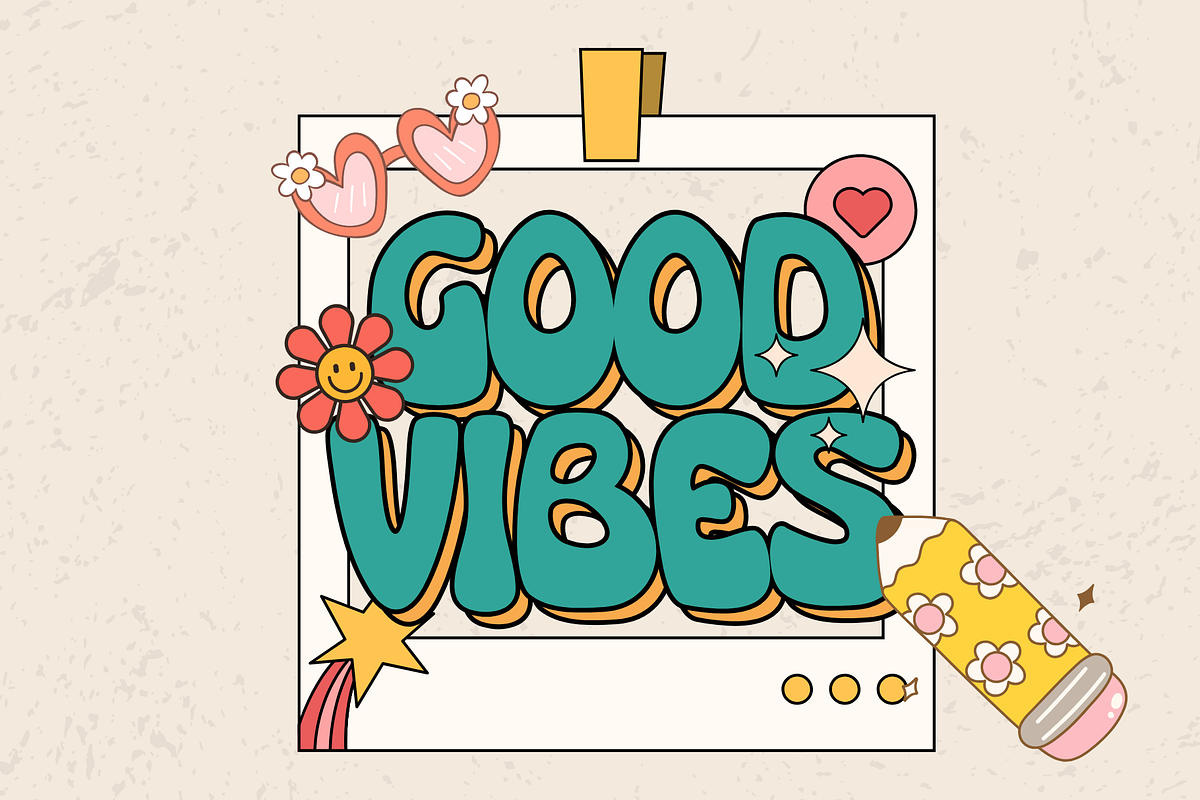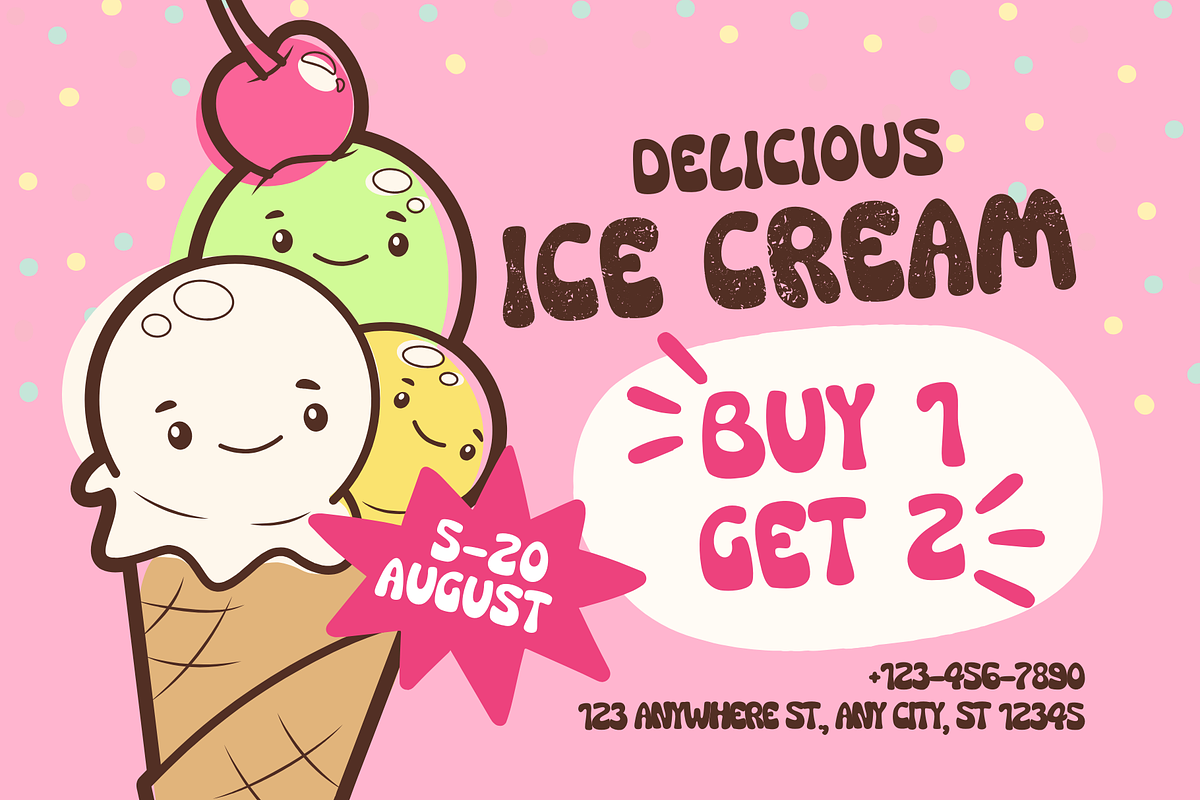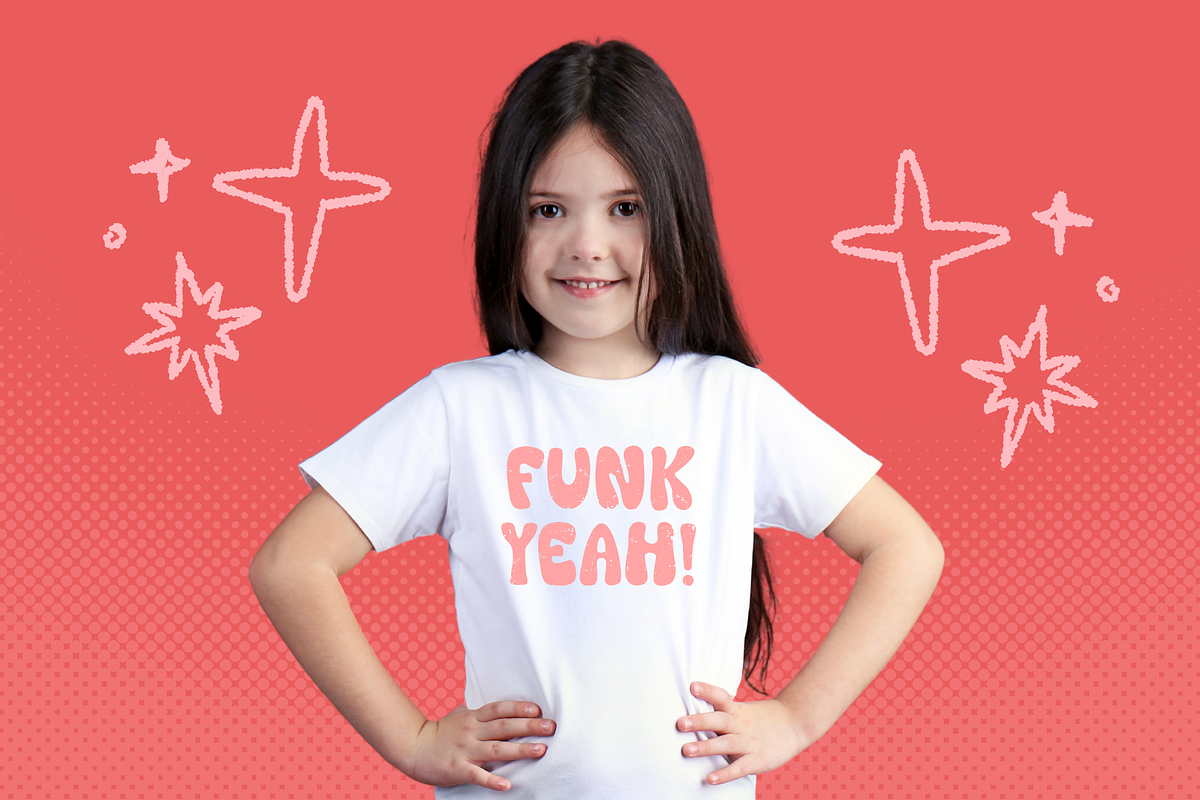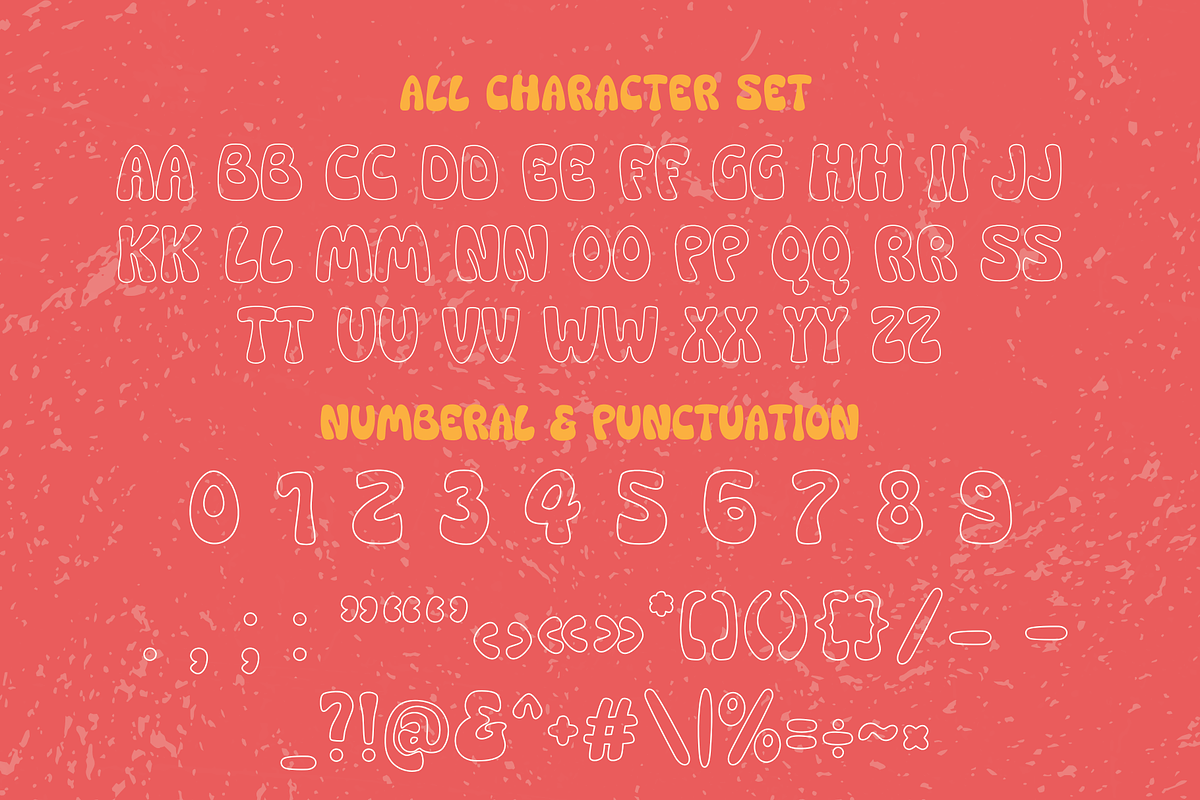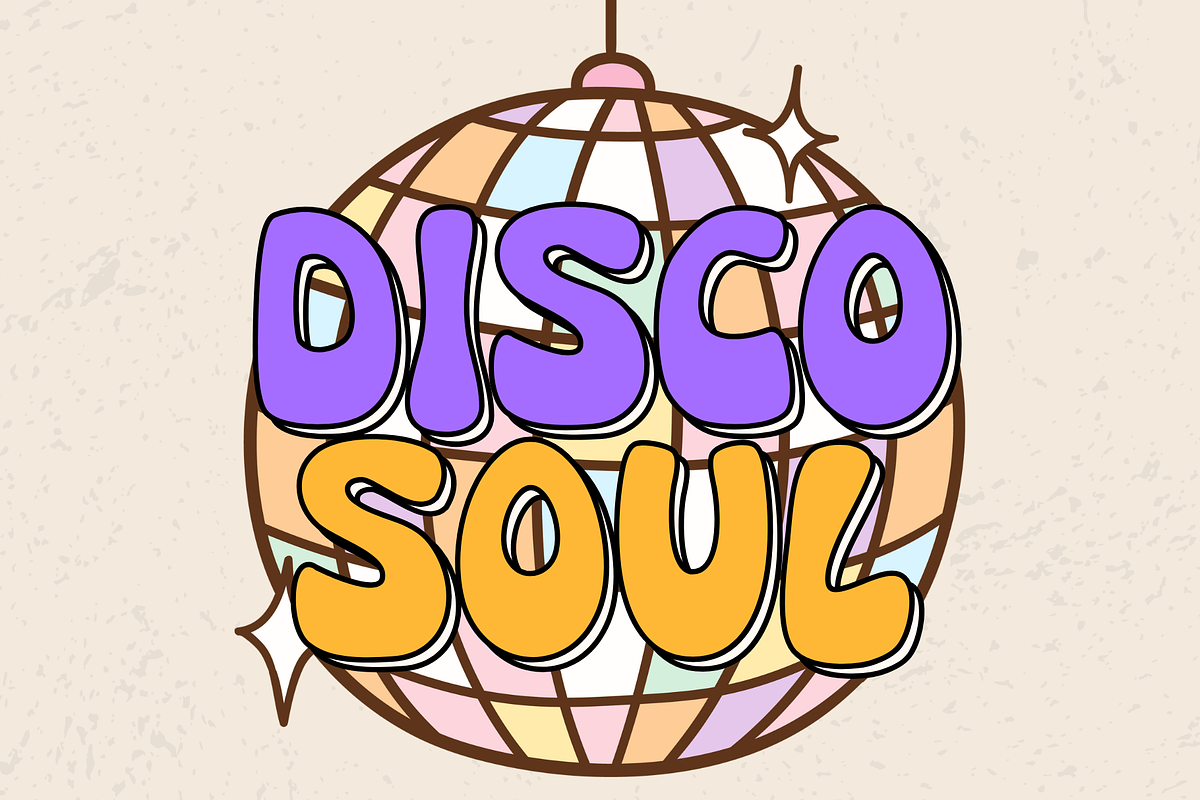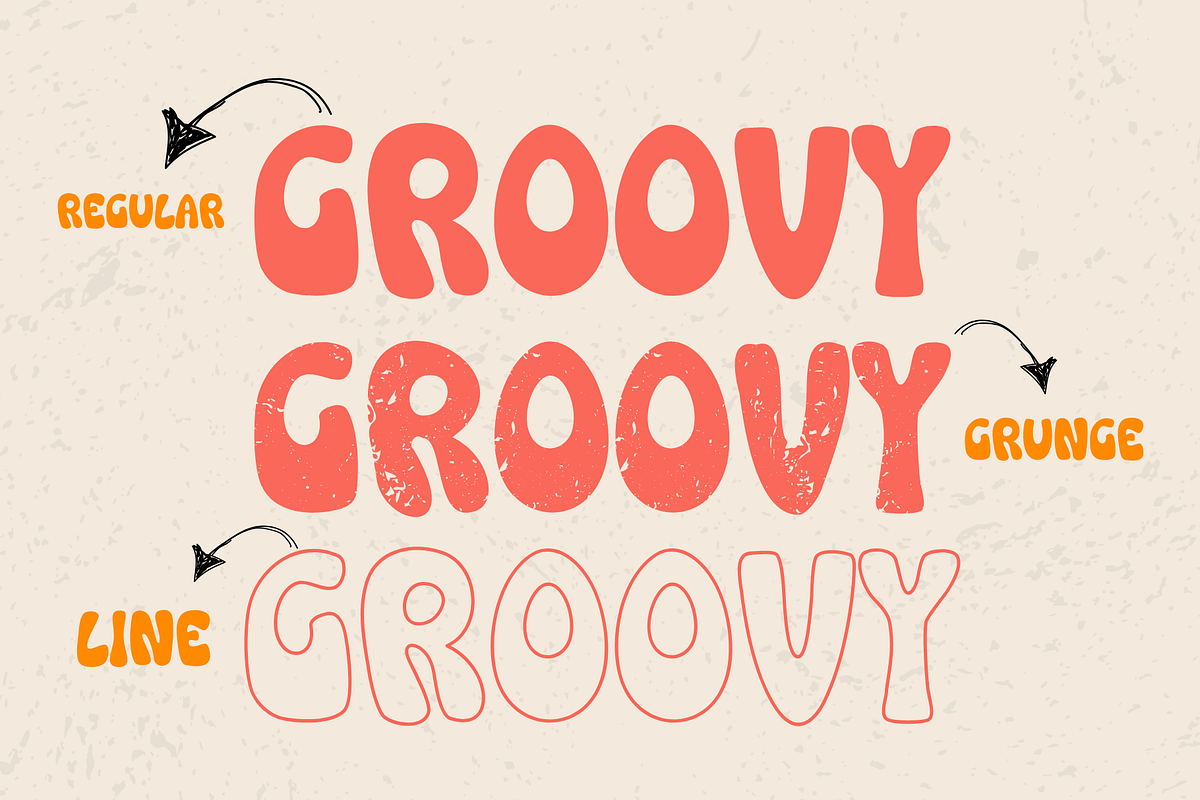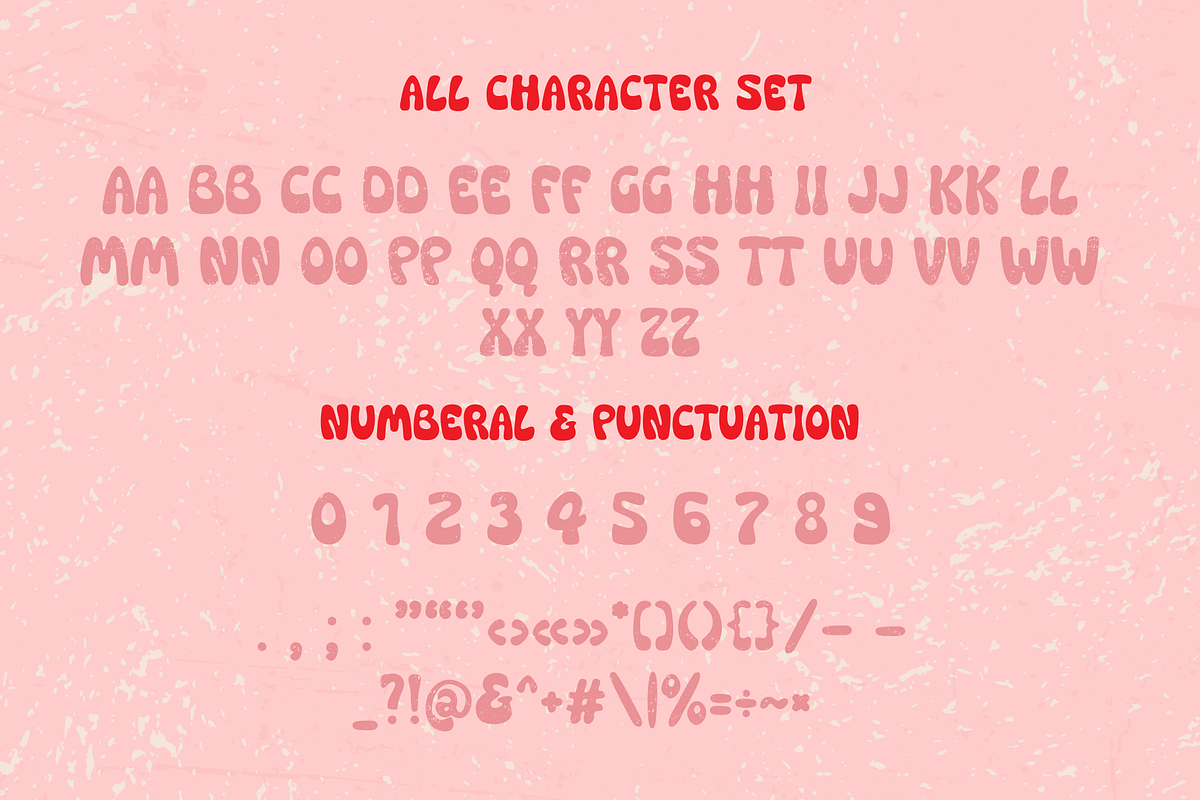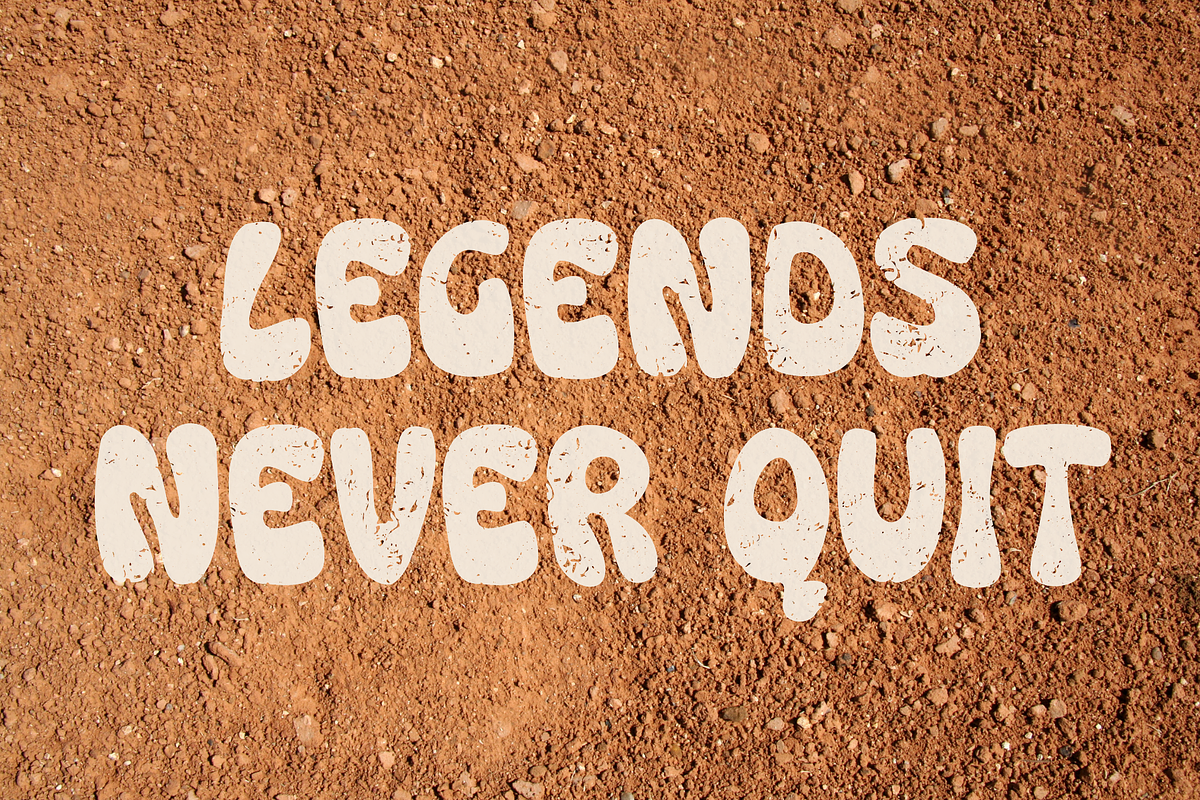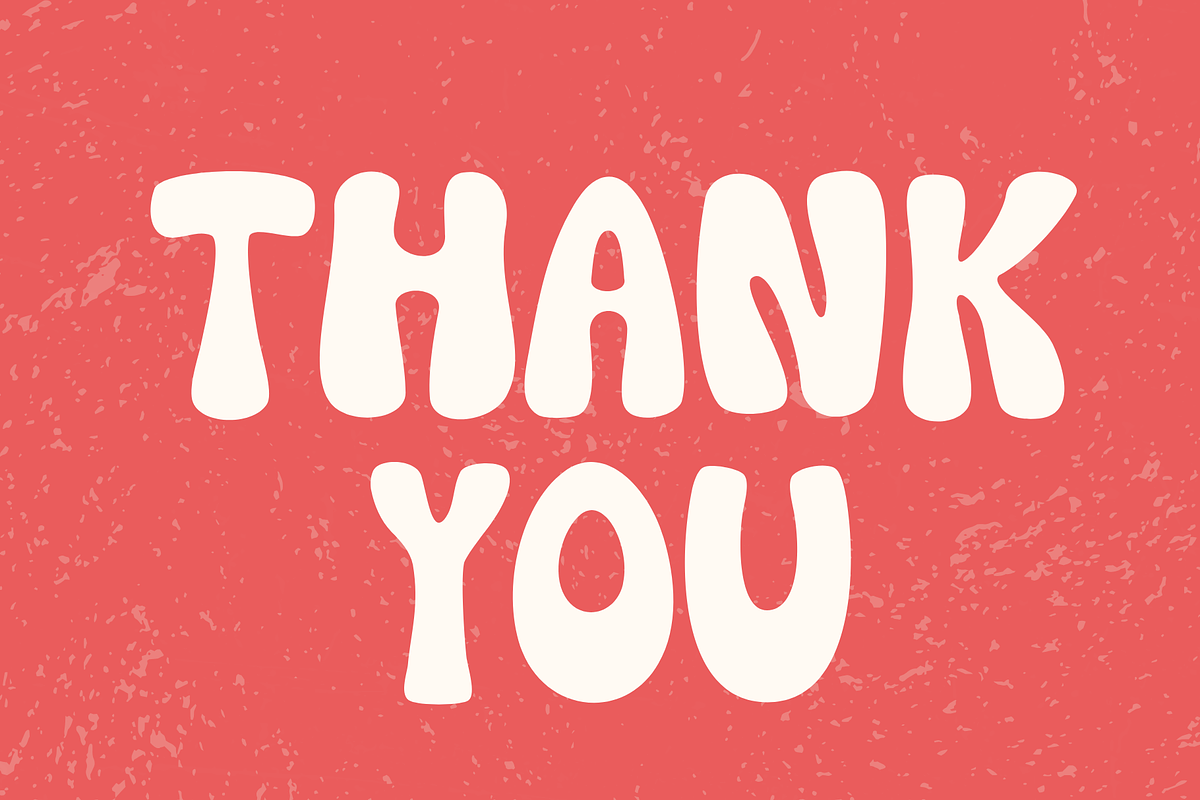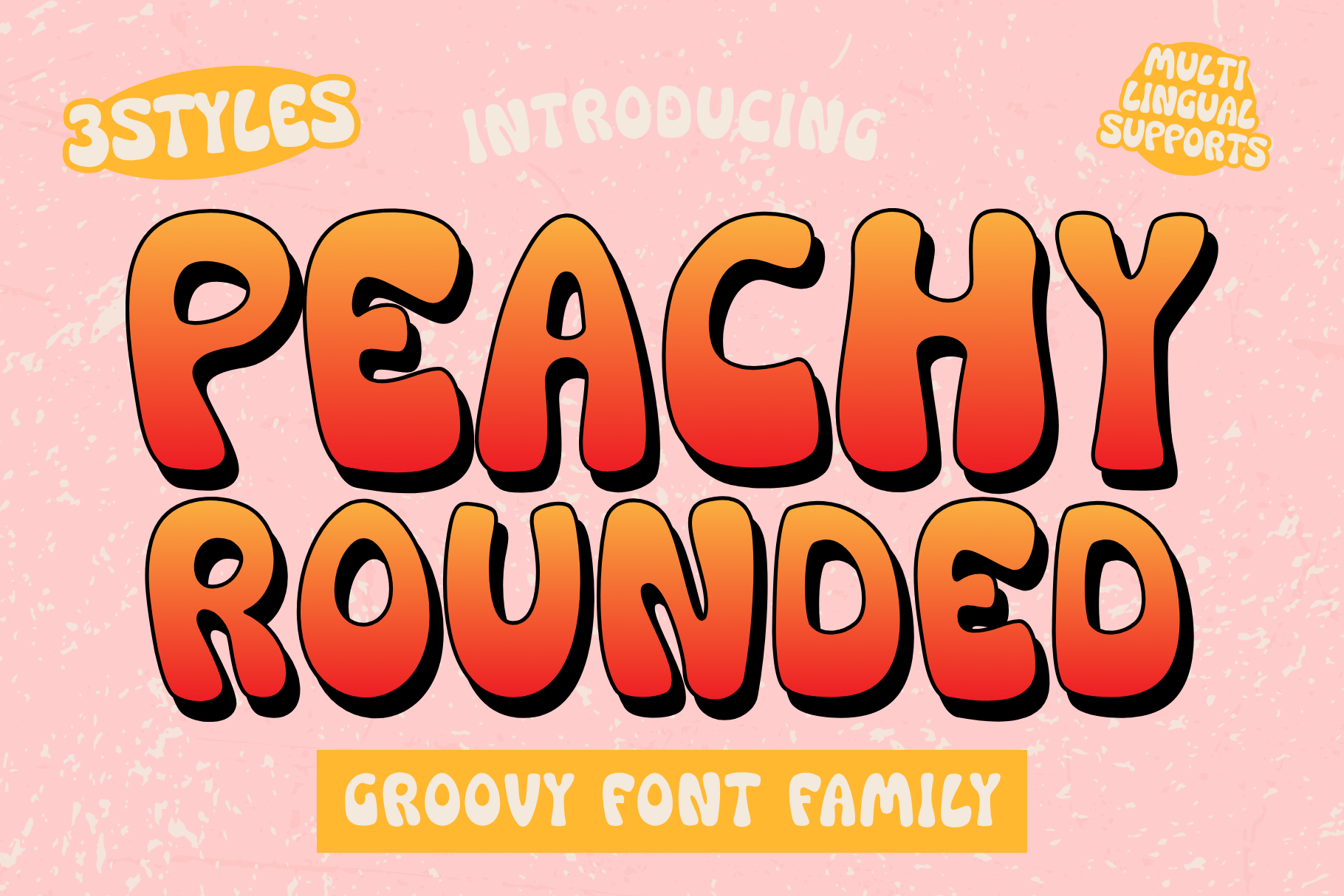
Peachy Rounded is a groovy font
Peachy Rounded is a groovy, retro-inspired typeface with a soft, bubbly personality and a warm 70s vibe. Designed to evoke joy, nostalgia, and playful charm, Peachy Rounded is perfect for branding, posters, album covers, social media graphics, and everything that wants a splash of sunshine and soul.